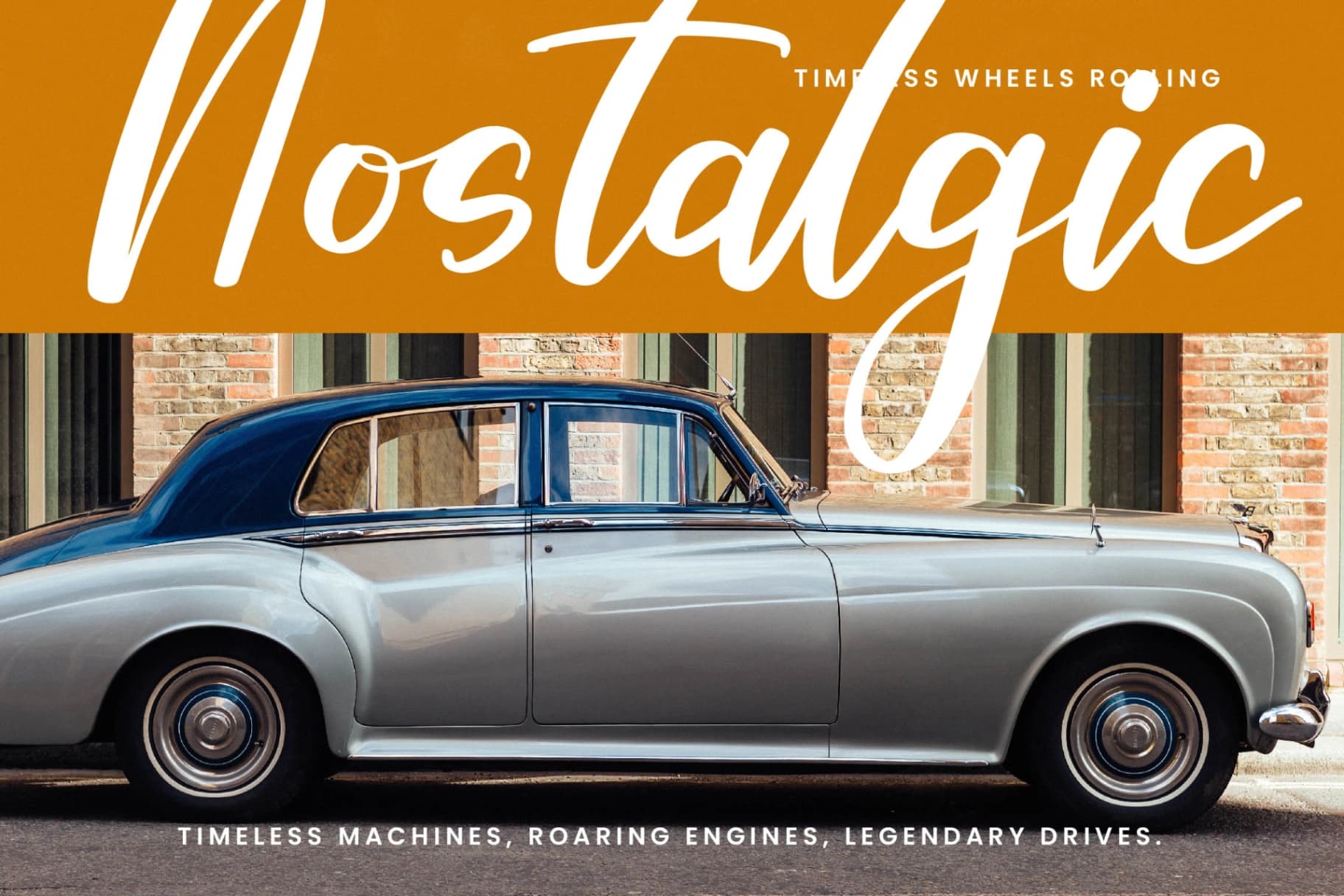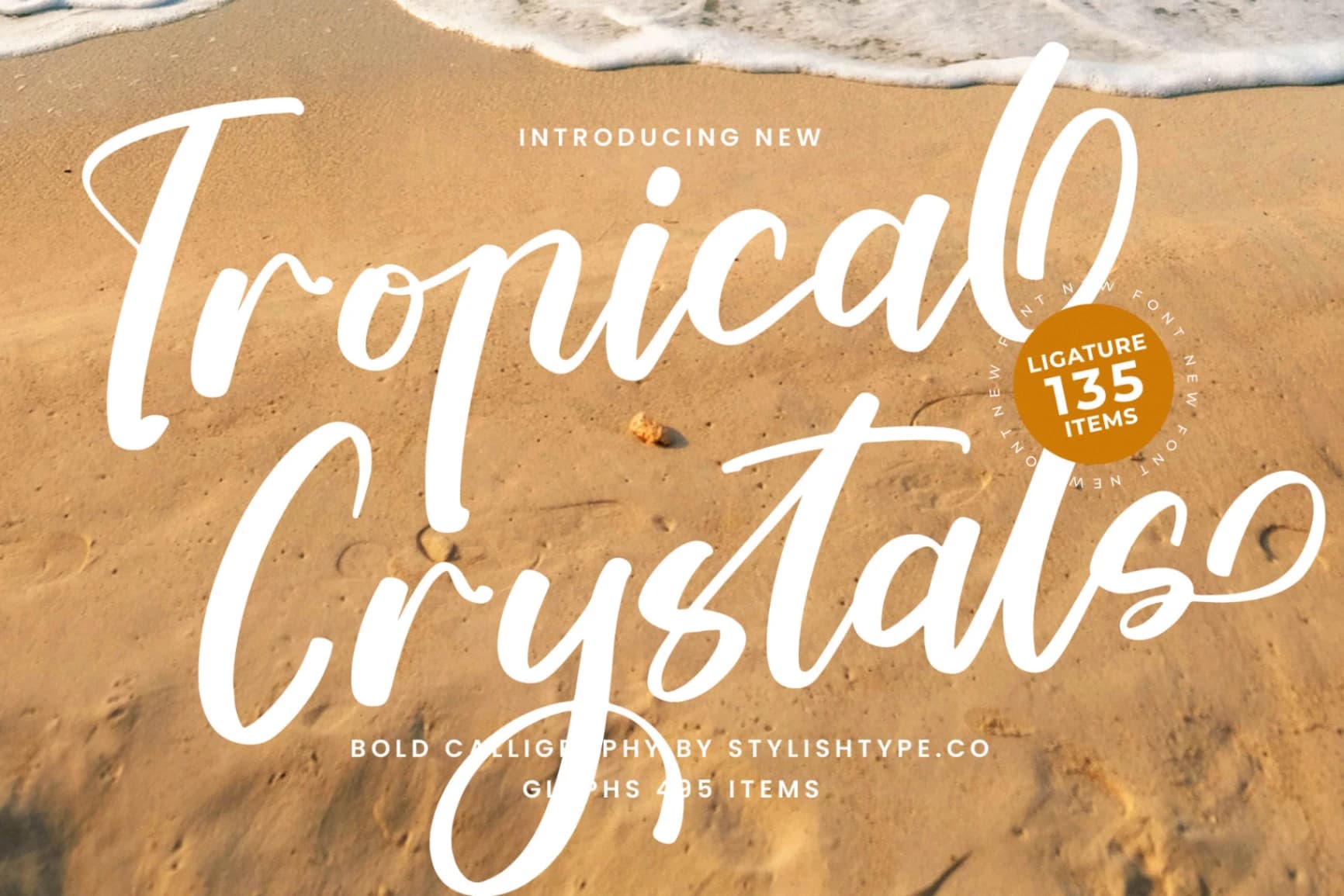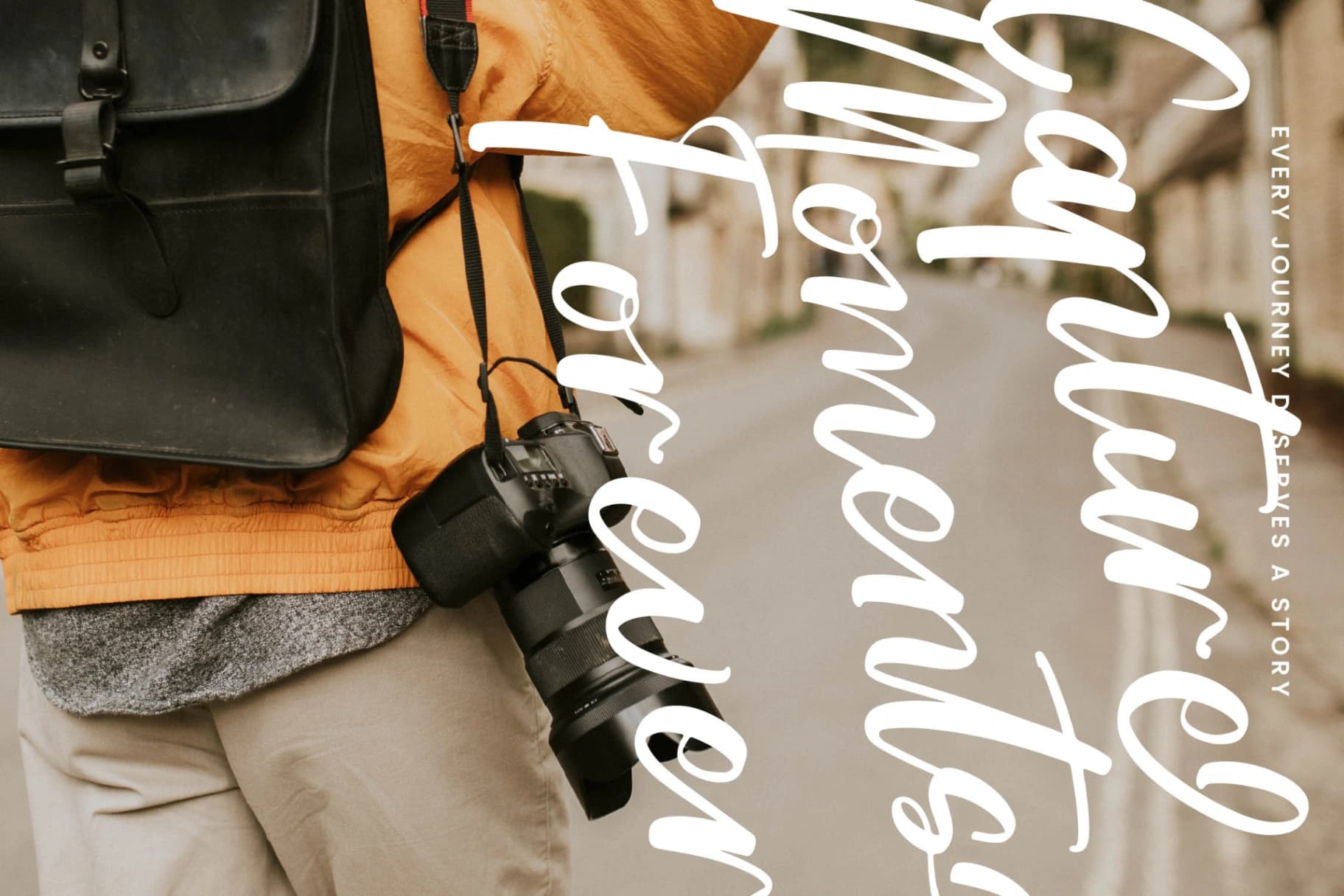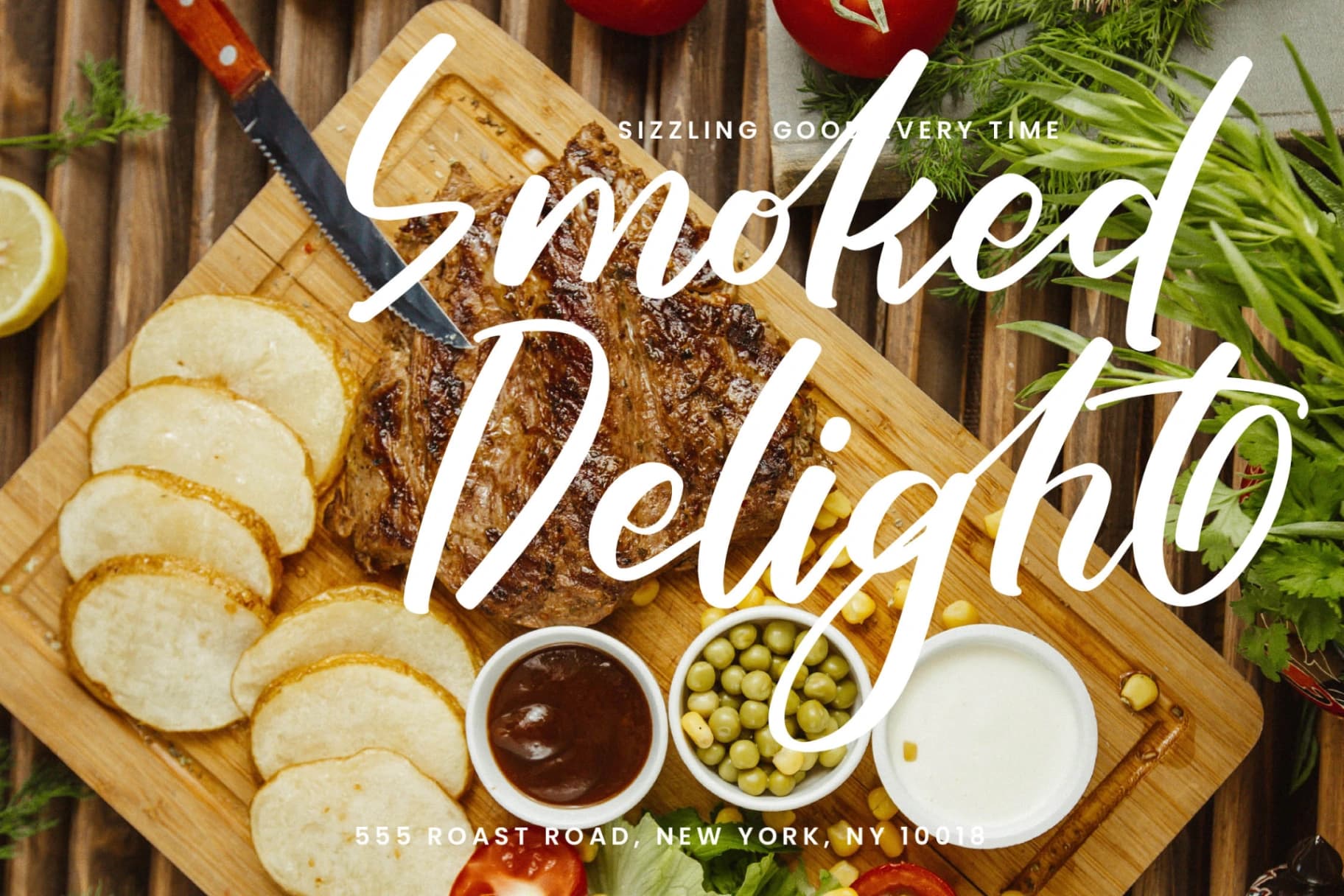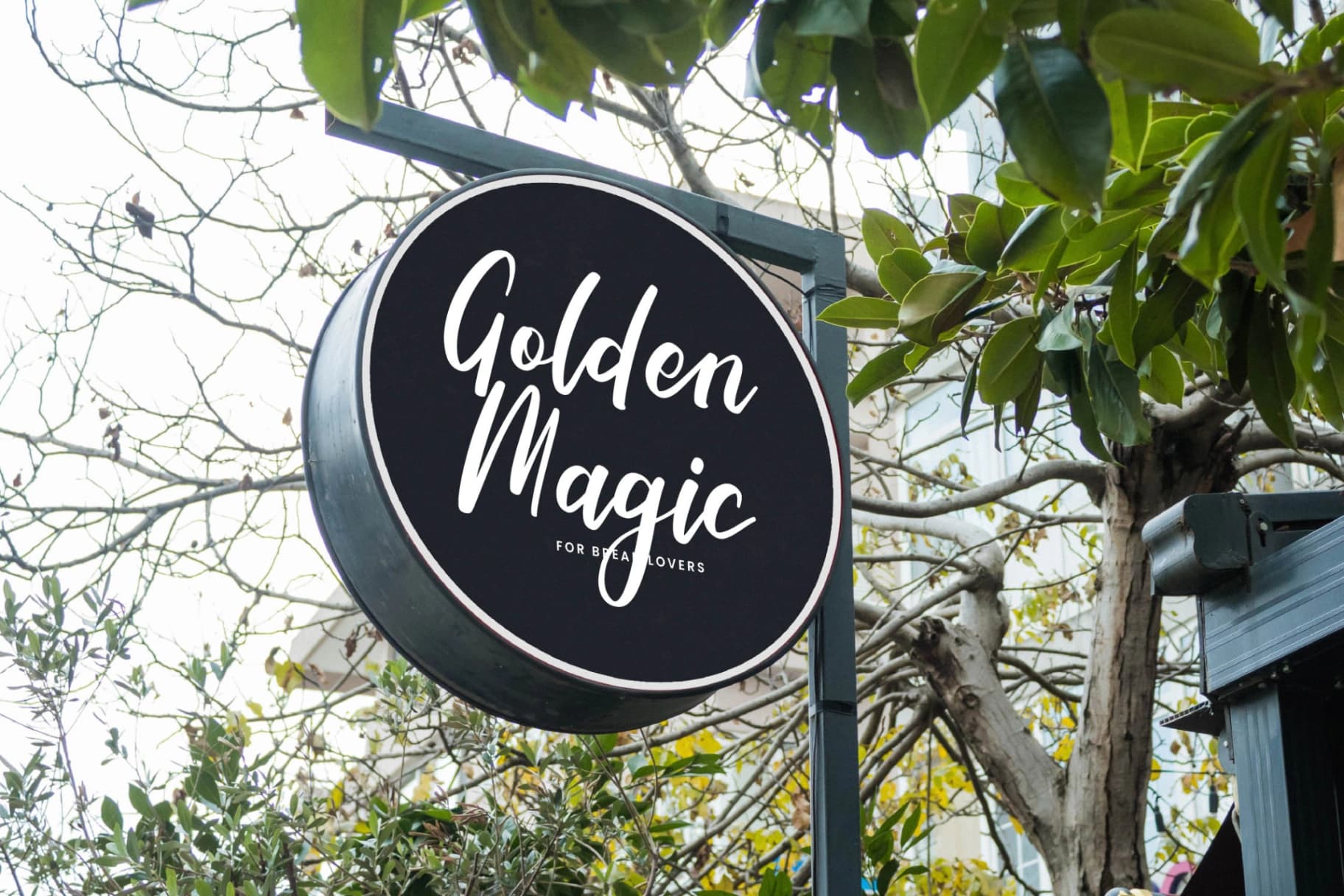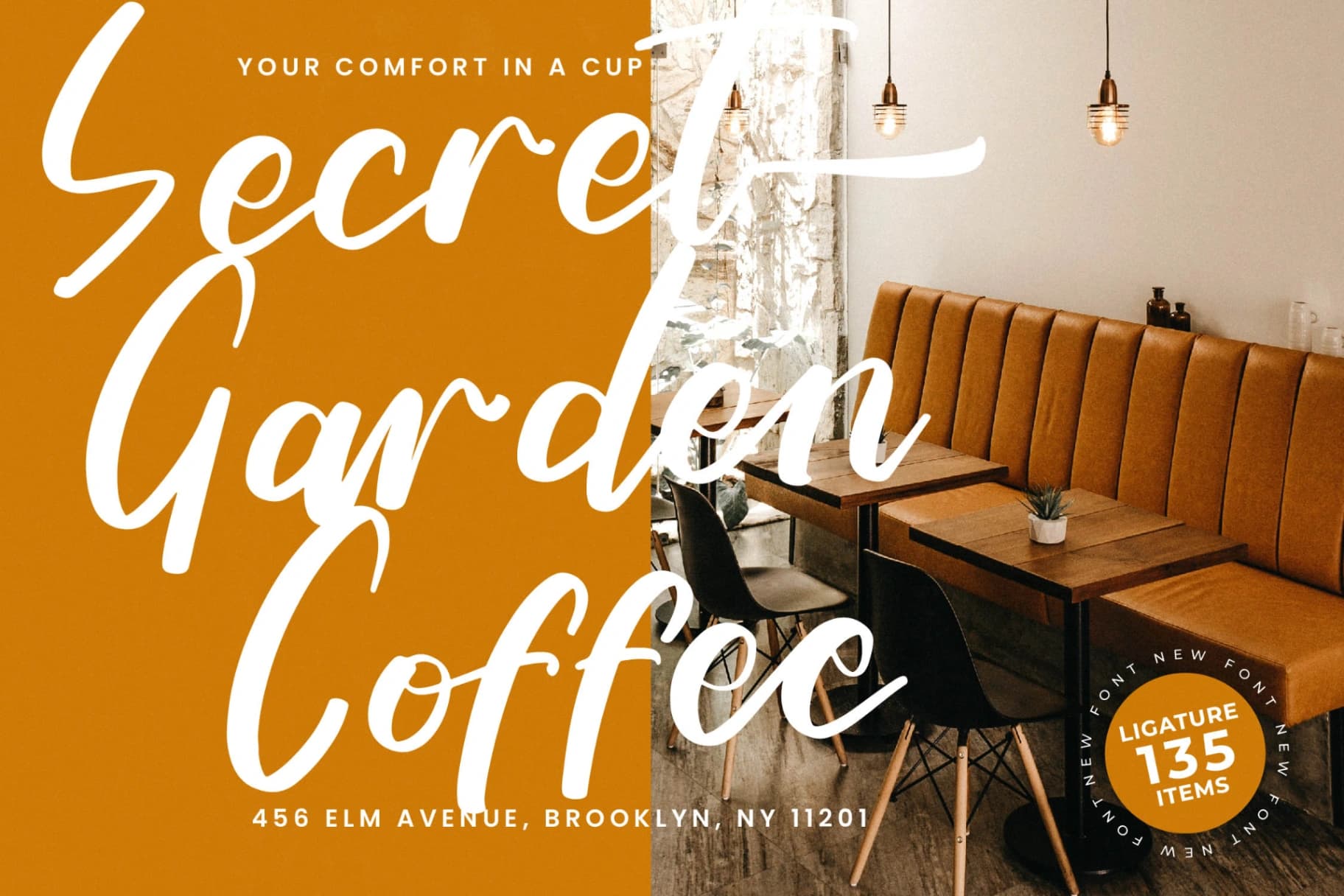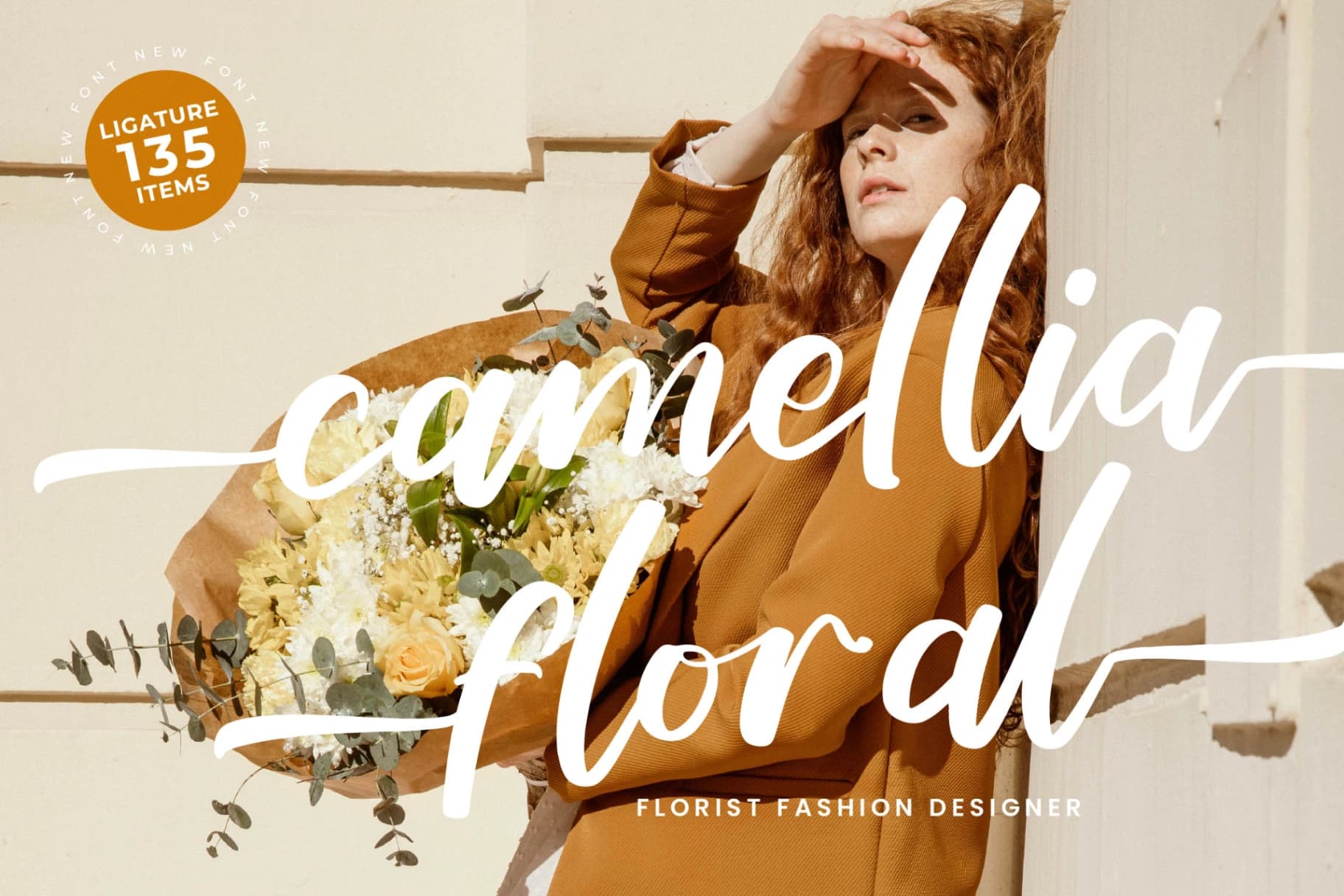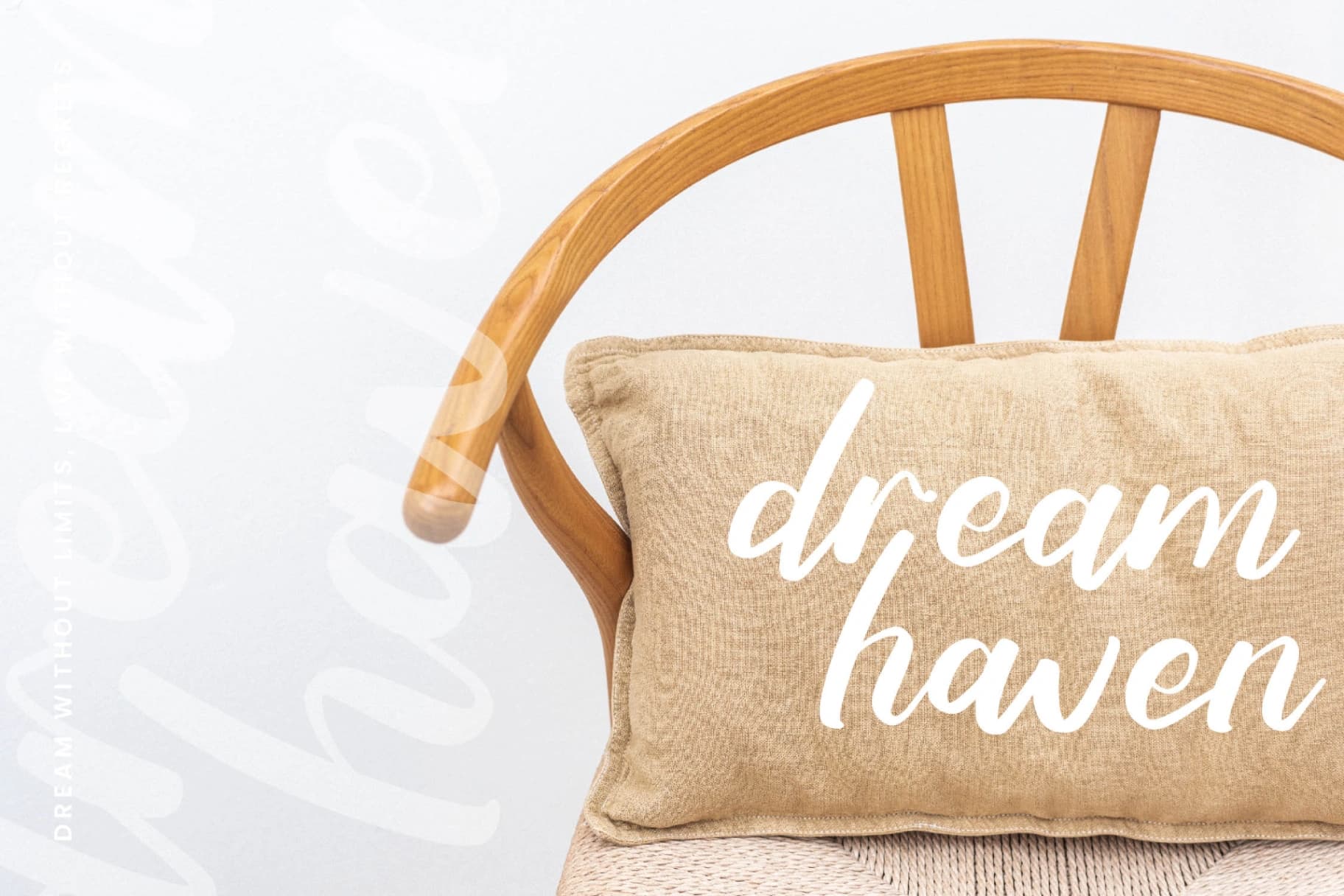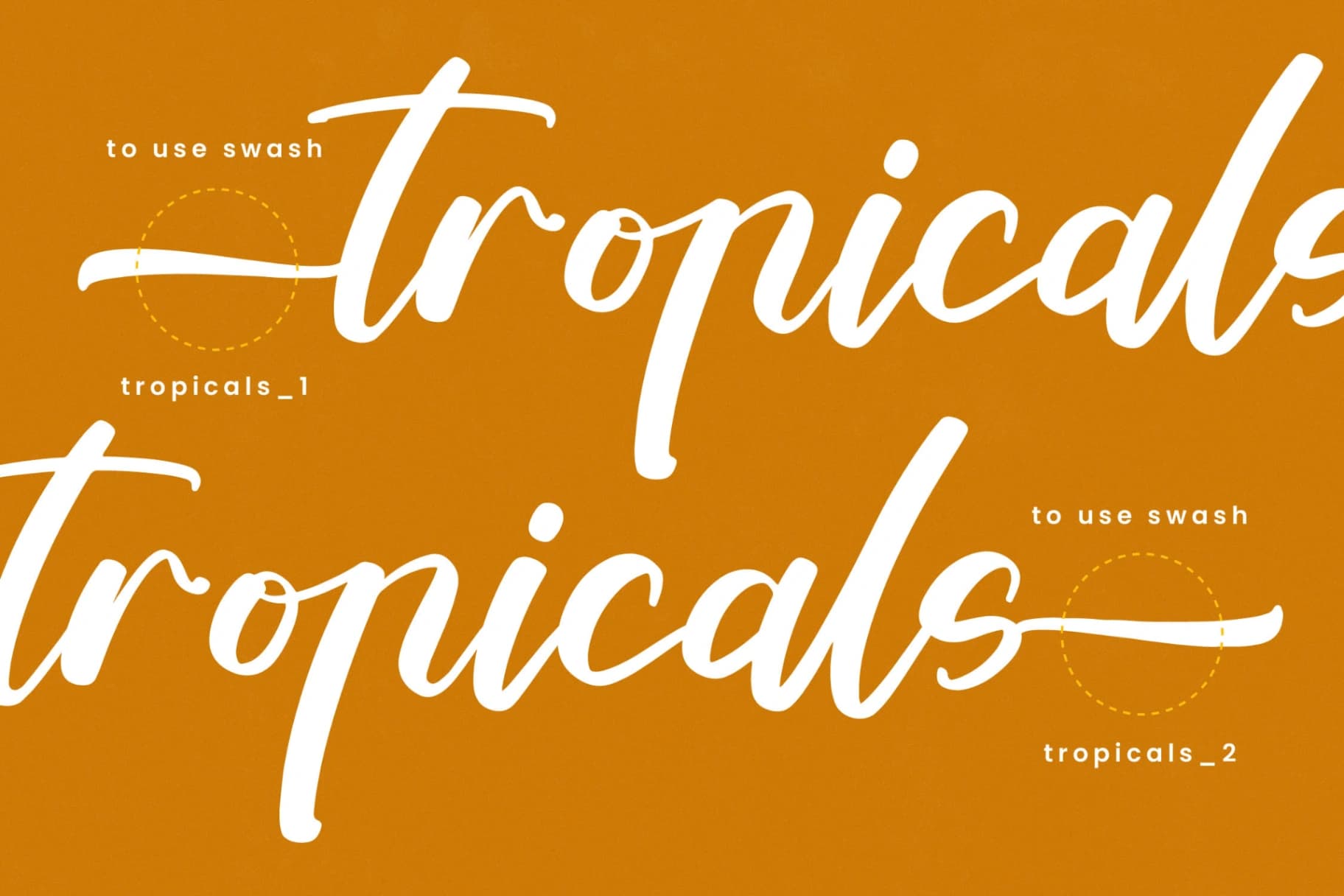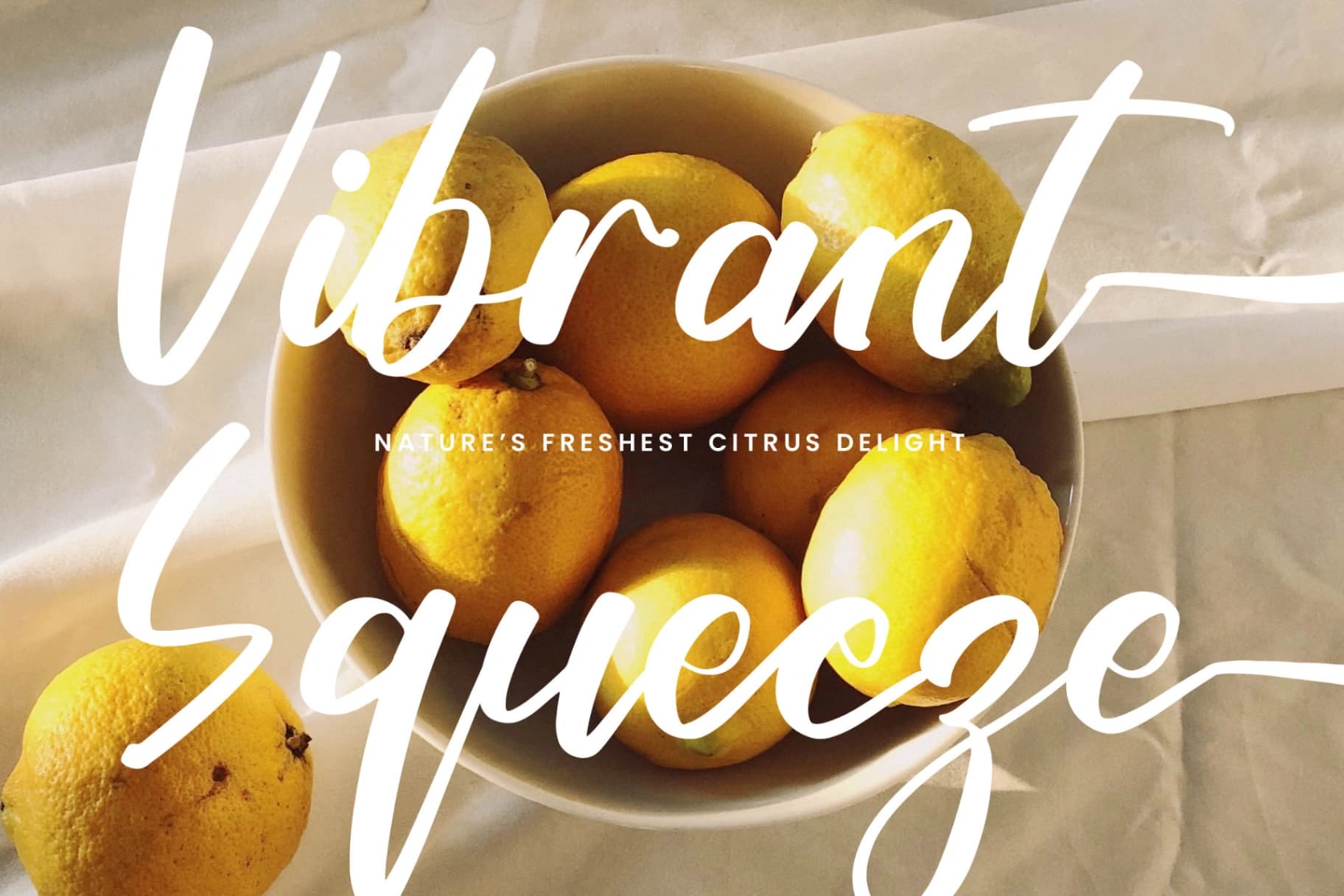
Tropical Crystals - Bold Calligraphy Font
Discover the captivating allure of Font Tropical Crystals - Bold Calligraphy Font Script, a masterful creation embodying both boldness and delicate artistry. This exquisite script font boasts naturally flowing strokes and a handcrafted aesthetic, instantly infusing designs with warmth and authentic charm. Its vibrant, expressive curves evoke effortless elegance, perfect for projects demanding genuine personality and sophisticated appeal.
Unleash unparalleled design flexibility with the comprehensive features of Font Tropical Crystals - Bold Calligraphy Font Script. Featuring an impressive array of over 135 ligatures and 495 glyphs, this font offers incredible customizability for unique typography. With its extensive multilingual support, Font Tropical Crystals - Bold Calligraphy Font Script adapts seamlessly across global markets, making it incredibly versatile for international projects.
Elevate your brand's presence with the distinctive elegance of Font Tropical Crystals - Bold Calligraphy Font Script, ideally suited for premium applications. It is perfect for luxury branding, high-end packaging, bespoke event invitations, fashion labels, and sophisticated editorial design. This font excels at creating memorable logos and beautiful wedding stationery, providing a handcrafted touch that resonates with exclusivity and refined taste.
Transform your creative vision by incorporating Font Tropical Crystals - Bold Calligraphy Font Script into your next project. Its bold yet graceful presence ensures your message stands out, commanding attention while maintaining approachable elegance. Invest in this exceptional calligraphy script to imbue your work with an unmistakable air of professionalism and artistic flair, setting new benchmarks for visual communication.